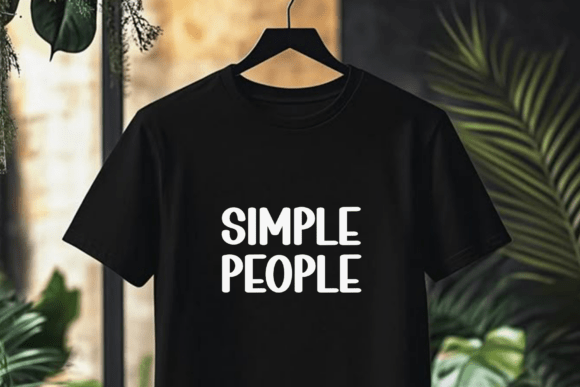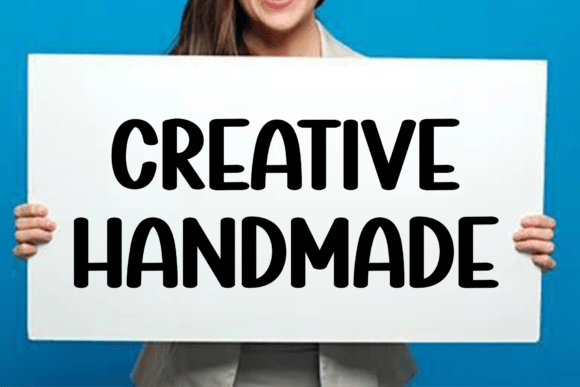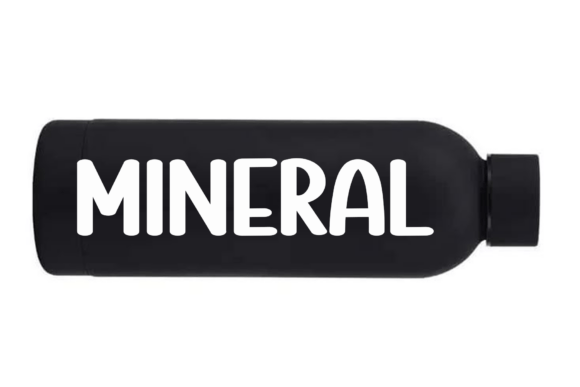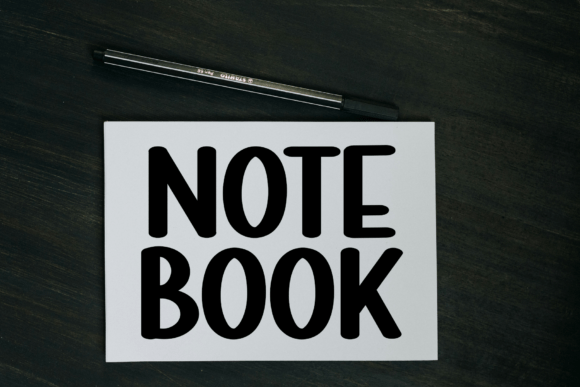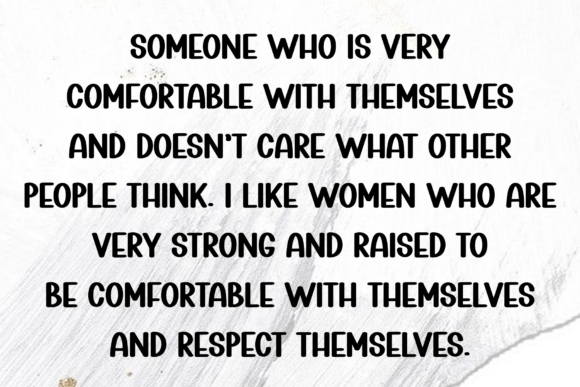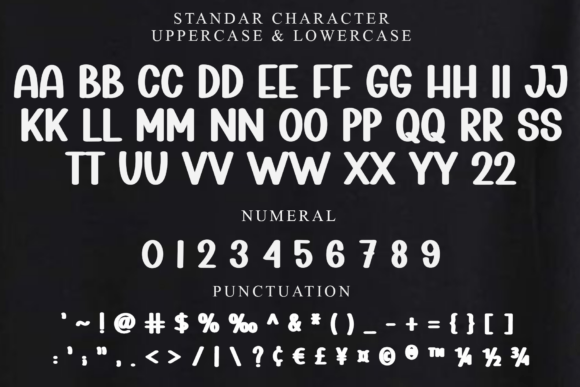
Introduction to Righthand Font
Have you ever stared at a blank canvas, waiting for the perfect design to come to life? For many creatives, it’s a moment of both excitement and anxiety. But what if you had the perfect tool to bring your vision to life? Enter the Righthand Font, a delightful addition to any design resource.
This charming font is more than just a pretty face; it’s a game-changer for designers looking to add a touch of warmth and friendliness to their high-quality creative projects. With its round, playful strokes, the Righthand Font is perfect for personal projects, invitations, and social media graphics that demand a relaxed and approachable feel.
Whether you’re working on a free download project or a commercial design, the Righthand Font’s transparent background and standard PUA Encoded glyphs make it a versatile and valuable asset for designers. In this article, we’ll dive deeper into the world of this amazing font and explore its many uses.
Key Features of Righthand Font
- Righthand Font is designed to be highly legible, with a clear and crisp appearance at various font sizes (up to 72 points).
- Righthand Font is designed with a unique, modern aesthetic, making it perfect for a wide range of creative projects, from logos to typography-based designs.
Honest Review: Righthand Font
As a designer, I’m always on the lookout for high-quality design resources to elevate my creative projects. Recently, I had the chance to try out the Righthand Font, and I must say, it’s been a game-changer.
- ✨ Beautifully crafted characters with intricate details
- ✨ Highly customizable with a wide range of font sizes and styles
- ✨ Perfect for use on both light and dark backgrounds, thanks to its transparent background option
- ✨ Great for creating visually appealing headings and titles in my designs
However, as with any design resource, there are some limitations to consider.
- ⚠️ Not suitable for use in situations where a bold, sans-serif font is required
- ⚠️ May require some tweaking to achieve the perfect font size and style in certain creative projects
Overall, I’m thoroughly impressed with the Righthand Font. Its high quality, versatility, and customization options make it an excellent choice for any designer looking to add some flair to their creative projects. It’s definitely a valuable addition to my design resource library, and I highly recommend it to fellow designers.
Righthand Font
Righthand Font is a high-quality, free design resource ideal for creative projects. This versatile font features a transparent background, making it perfect for overlays, text effects, and more.
Tips for Getting the Most Out of Righthand Font
For the best results, use Righthand Font in conjunction with a high-quality image or background. Experiment with different font sizes, colors, and effects to add visual interest to your design.
Righthand Font is perfect for:
- Creating eye-catching text effects and overlays.
- Adding a professional touch to presentations and reports.
- Designing engaging social media graphics and ads.
Alternatives to Righthand Font
Open Sans is a popular, high-quality sans-serif font that is perfect for creative projects. It’s free to download and use in your designs. When to use: headings, body text, and digital interfaces. Compared to Righthand Font, Open Sans has a more modern and clean look, making it ideal for contemporary designs.